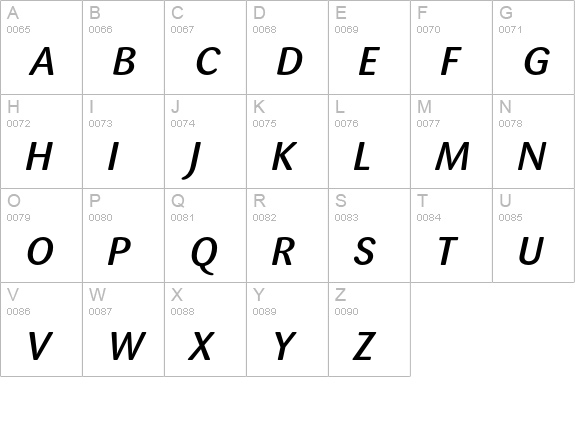
Sari-MediumItalic Font Details
Introducing Sari-MediumItalic, a captivating and versatile font that effortlessly combines elegance with a touch of playfulness. This meticulously crafted typeface is perfect for those seeking a distinctive look that will captivate audiences across various design projects. Sari-MediumItalic boasts a unique blend of flowing curves and precise angles, resulting in a harmonious balance that exudes sophistication. Its medium weight adds a touch of boldness, making it ideal for headlines, titles, and branding materials. Whether you're designing a logo, creating an eye-catching poster, or crafting a memorable website, Sari-MediumItalic will elevate your designs to new heights. The italicized form of Sari-MediumItalic adds a subtle slant that adds a dynamic and energetic feel. It effortlessly conveys a sense of motion and movement, making it an excellent choice for conveying action or excitement in your designs. With its versatile nature, this font is equally adept at conveying a sense of elegance and professionalism for more formal projects. What makes Sari-MediumItalic even more appealing is that it is freely available to download at FontsMarket.com. This means that you can effortlessly incorporate this font into your creative endeavors without any financial constraints. Its accessibility ensures that designers of all skill levels can enjoy its beauty and versatility. So, whether you're a seasoned graphic designer or an aspiring artist, Sari-MediumItalic is the perfect companion for your creative journey. With its captivating aesthetic, seamless legibility, and the freedom to download it for free, Sari-MediumItalic is a must-have for anyone looking to make a lasting impression with their designs.